The “Dolemite Is My Name” font is an iconic, gritty, and bold display typeface that captures the raw energy and unapologetic style of Rudy Ray Moore’s legendary character. It’s typically a custom-designed, hand-lettered look, heavily influenced by 1970s blaxploitation film posters, characterized by its thick strokes, uneven edges, and high-impact visual presence. For your projects, aim for fonts that evoke a similar vintage, urban, and slightly rebellious vibe.
Ever seen a movie poster that just screams attitude? That’s the magic of a great font! The “Dolemite Is My Name” movie poster features a lettering style that’s instantly recognizable – bold, a little rough around the edges, and full of personality. It’s the kind of look that grabs your attention and tells you exactly what kind of ride you’re in for. But finding that perfect font for your own designs can feel a bit like a treasure hunt. We’ve all been there, scrolling through endless options, trying to capture that specific vintage, urban, and unapologetic vibe. Don’t worry, I’m here to help you navigate this! We’ll break down exactly what makes that Dolemite lettering so special and guide you toward fonts that can bring that same powerful energy to your projects. Let’s dive in and find your new favorite display typeface!
Unpacking the “Dolemite Is My Name” Font Aesthetic
The “Dolemite Is My Name” movie title treatment isn’t just a font; it’s a statement. It’s a carefully crafted piece of lettering designed to convey a specific era, attitude, and a whole lot of swagger. When we talk about the “Dolemite Is My Name font,” we’re really referring to the unique typographic style you see in the film’s promotional materials, posters, and credits. This isn’t a readily available, off-the-shelf font that you can simply download and use. Instead, it embodies a spirit and a set of characteristics that we can emulate and find inspiration from.
Think of it as a custom-designed signature for the character and the film. This hand-rendered approach was common in the era and for genre films where a raw, impactful, and distinctive look was paramount. The goal was to stand out, to feel authentic, and to hint at the unfiltered nature of Dolemite himself.
Key Characteristics to Look For:
- Boldness and Weight: The letters are almost always thick and heavy, designed to command attention. They have a substantial presence that makes them feel powerful and unyielding.
- Rough Edges and Texture: You’ll notice that the linework isn’t perfectly smooth. There are often slight imperfections, a hand-drawn quality, or a textured appearance that gives it a gritty, organic feel. This imperfection is part of its charm and authenticity, avoiding a sterile, digital look.
- Angularity and Sharpness: While bold, the letters also often feature sharp angles and points, giving them an edgy, dynamic quality. This contrasts with softer, more rounded lettering and adds to the assertive personality.
- Retro/Vintage Feel: The style is deeply rooted in the visual language of the 1970s, particularly blaxploitation film posters and street art of the time. It evokes a specific time and place, carrying with it a sense of nostalgia.
- High Contrast: Often, there’s a noticeable contrast between thick and thin strokes within letters, or a general contrast in how the letters are styled against their background, making them pop.
- Slightly Distorted or Condensed Forms: Sometimes, letters might appear slightly condensed or intentionally distorted to fit a particular space or to enhance the visual impact, adding to the unique character.
Understanding these elements is the first step. It’s not about finding an exact replica, but about capturing the essence of that distinctive “Dolemite Is My Name” look. It’s about channeling that fearless, vibrant, and unforgettable energy into your own design choices.
Why “Dolemite Is My Name” Font Style Matters for Your Brand
Why should you care about a specific movie poster font? Because typography is a powerful tool for communication and branding. The “Dolemite Is My Name” aesthetic offers a unique set of characteristics that can be incredibly effective when applied thoughtfully to logos, websites, marketing materials, or merchandise. It’s not just about looking cool; it’s about conveying a message, evoking an emotion, and attracting a specific audience.
If your brand or project aims to communicate aspects like:
- Authenticity and Rawness: A brand that prides itself on being real, unfiltered, and true to its roots.
- Boldness and Confidence: A strong, assertive presence that doesn’t shy away from making a statement.
- Nostalgia and Retro Appeal: Tapping into a specific vintage era, like the 1970s, for a cool, retro vibe.
- Urban Culture and Grit: Reflecting a street-smart, no-nonsense attitude often associated with urban environments and independent spirit.
- Creativity and Unconventionality: A brand that is playful, artistic, and breaks the mold.
…then emulating elements of the “Dolemite Is My Name” font style can be a fantastic strategic choice. It instantly communicates these qualities to your audience, helping to build a strong, memorable brand identity.
Finding “Dolemite Is My Name” Inspired Fonts
Since the original “Dolemite Is My Name” title treatment is custom lettering, we need to look for commercially available fonts that capture its spirit. This means exploring categories like display fonts, vintage fonts, brush fonts, and fonts with a strong, gritty character. Here, I’ve curated a list of font types and specific examples that get you close to that iconic look, focusing on what makes them a good fit.
Font Categories to Explore:
When you’re searching font libraries (like Google Fonts, Adobe Fonts, DaFont, Fontspring, etc.), keep these categories in mind:
- Groovy/Retro Script Fonts: These often have a thick, flowing, yet sharp quality that echoes the bold, hand-drawn feel.
- Brush Script Fonts: Look for those with a textured, slightly uneven brush stroke, mimicking hand-painted titles.
- Stencil Fonts: Some stencil fonts have a rough, industrial edge that can approximate the grit.
- Bold Display/Headline Fonts: Fonts with strong slab serifs or thick, blocky shapes can provide the necessary impact.
- Distressed/Textured Fonts: Fonts designed to look worn or aged naturally fit the vibe.
Recommended Fonts That Channel the Dolemite Vibe:
While exact matches are rare, these fonts offer similar energy and stylistic elements:
| Font Name | Category | Why it Works | Link/Resource Example |
|---|---|---|---|
| Peace Sans | Bold Sans-Serif / Retro | A very bold, slightly rounded sans-serif with a distinct 70s feel. Its chunky weight and friendly yet assertive presence align well with the Dolemite poster’s impact. | DaFont |
| Arnold Boecklin | Art Nouveau / Display | While older, its flowing and ornate yet substantial curves can be adapted. It has a strong, decorative character that can feel vintage and attention-grabbing. | Adobe Fonts |
| Marlowe | Brush Script / Vintage | This font has a fantastic rough, brush-like texture and an energetic flow. It captures the hand-painted, slightly imperfect quality that is central to the Dolemite title style. | Fontspring |
| Lemon Milk | Geometric Sans-Serif (Bold) | Its bold, slightly rounded geometric shapes make it super legible and impactful. While cleaner than Dolemite, its sheer presence is undeniable and can be a good base for customization. | Font Squirrel |
| Pacifico | Script / Brush | A popular, friendly script font with a casual brush feel. It’s more rounded and smoother than Dolemite’s aggressive style but shares the hand-lettered DNA and retro warmth. | Google Fonts |
| Bebas Neue | Condensed Sans-Serif | Extremely popular for bold headlines. While very clean, its tall, condensed, all-caps style offers a powerful, in-your-face look that can be a foundation. | Google Fonts |
Remember, the goal isn’t always a perfect match. It’s about finding a font that evokes the same feeling. Sometimes, a font like Bebas Neue or Lemon Milk can serve as a strong, bold foundation, into which texture or slight edits can be added to amp up the grit. Other times, a brush script like Marlowe might be closer in its raw, hand-drawn essence.
How to Achieve the “Dolemite Is My Name” Look in Your Designs
Simply picking a font is only half the battle! To truly capture that “Dolemite Is My Name” magic, you need to think about how you use the typography. This involves understanding design principles and applying them to enhance the font’s inherent character. It’s about making the letters work for your message, just like they did for Rudy Ray Moore’s iconic persona.
Step-by-Step Design Process:
- Identify Your Core Message: What is the absolute core of your project? Is it humor, defiance, nostalgia, urban reality? The message will guide your font choice and styling.
- Select Your “Inspired” Font: Choose one or two fonts from the categories or examples mentioned above. Opt for bold, impactful typefaces. For instance, a thick script for the main title and a sturdy sans-serif for supporting text. Brands like AIGA emphasize understanding the design process to achieve impactful results.
- Embrace Boldness: Don’t be afraid to use your chosen font at a large size. Titles and key phrases should be dominant elements in your design.
-
Add Texture and Imperfection: This is crucial for replicating the gritty, hand-rendered feel.
- Distressed Overlays: Many graphic design tools (like Adobe Photoshop or Illustrator) allow you to apply textures. Search for “grunge textures,” “paper textures,” or “subtle noise overlays.” Apply these subtly over your text.
- Brush Strokes: If using a brush font, ensure it has a natural stroke variation. If rasterizing text (converting it to pixels for editing), you can then use brushes to add edge imperfections or ink splatters.
- Manual Edits: For ultimate control, convert your text to outlines (in vector software) and manually tweak anchor points to roughen up edges or create slight, intentional irregularities.
- Color Palette: The original posters often used vibrant, high-contrast colors. Think bold reds, yellows, oranges, and deep blues or blacks. Use colors that pop and enhance the lettering’s dynamism. A limited, high-impact palette often works best.
- Layout and Composition: Arrange your text dynamically. Don’t be afraid of slightly off-kilter angles or overlapping elements. The “Dolemite Is My Name” style isn’t about perfect symmetry; it’s about energy and presence. Consider placing text over textural backgrounds or even photographic elements for a layered effect.
- Supporting Typography: For body text or smaller details, choose simpler, highly readable fonts that complement, rather than compete with, your display font. A clean sans-serif or a utilitarian slab serif usually works well. This ensures that while the main title has flair, your information remains accessible.
Tools to Help You:
- Adobe Photoshop/Illustrator: Industry-standard tools for applying textures, creating custom lettering, and manipulating vector shapes.
- Affinity Designer/Photo: Powerful, more affordable alternatives to Adobe products.
- Font Libraries: Google Fonts (free), Adobe Fonts (subscription), Font Squirrel (free), DaFont (free, for personal use), Fontspring, MyFonts (paid).
- Texture Packs: Websites like Envato Elements, Creative Market, or even free stock photo sites often offer texture packs that can be used.
By combining a well-chosen font with these styling techniques, you can effectively capture the raw, confident, and unforgettable spirit of the “Dolemite Is My Name” aesthetic for your own creative endeavors.
Case Studies: Where This Style Shines
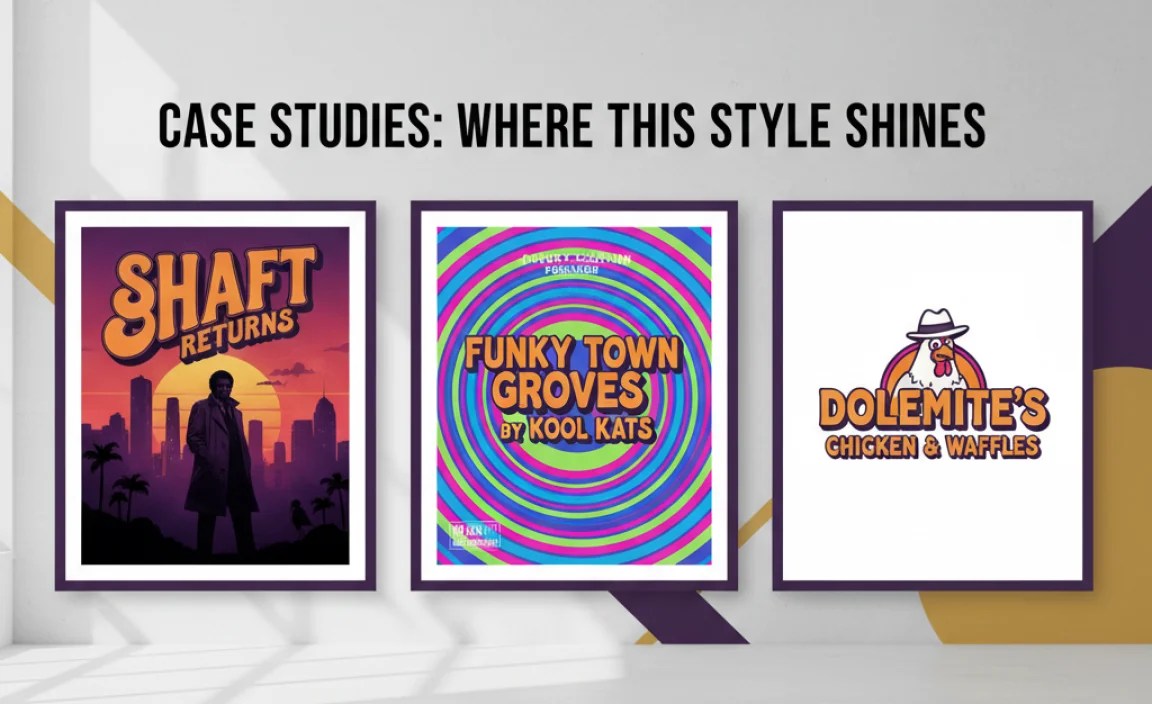
Understanding the “Dolemite Is My Name” font style is one thing, but seeing it in action provides concrete inspiration. This bold, retro, and expressive aesthetic isn’t limited to movie posters. It can add immense personality and impact to various branding and design projects when applied strategically. Let’s look at a few hypothetical (but realistic!) scenarios.
1. Independent Film Marketing
Scenario: A director is releasing a gritty, independent martial arts film set in the 1980s. The film’s tone is retro, action-packed, and has a DIY spirit, much like Dolemite.
Application: Using a font similar to Marlowe or a distressed version of Peace Sans for the film’s title treatment on posters and social media could:
- Instantly communicate the genre and era.
- Convey a sense of raw energy and authenticity.
- Attract an audience that appreciates cult classics and retro aesthetics.
- The tagline could be in a utilitarian, bold sans-serif like a condensed Bebas Neue which is highly legible even at small sizes, providing contrast and clarity.
2. Craft Brewery Branding
Scenario: A new craft brewery wants to launch a bold, hop-forward IPA with an urban, slightly rebellious edge. They want their brand to feel authentic, no-nonsense, and memorable.
Application: The primary logo or beer name display could use a custom-modified bold font with slight imperfections, reminiscent of the Dolemite style, perhaps paired with a strong, custom-designed label.
- The lettering would convey confidence and a strong flavor profile.
- Adding a vintage texture to the label itself would enhance the tactile, handcrafted feel.
- The brewery’s name could be in a clean, sturdy sans-serif like Lemon Milk, while the specific IPA name might use the more expressive Dolemite-inspired font. This balances boldness with readability for product lines.
3. Music Album Art
Scenario: A hip-hop artist is releasing an album that samples 1970s funk and soul, with lyrical content that’s raw, storytelling-focused, and rich with urban slang.
Application: The album title on the cover art could be rendered in a powerful brush script or a bold, slightly distressed display font.
- This would visually connect the music’s sonic influences to its lyrical themes.
- It signals to fans that this is an album with substance and a strong, independent voice.
- Artist names could be in a contrasting, cleaner bold font to ensure legibility and hierarchy within the artwork.
4. Vintage Clothing Brand or T-Shirt Line
Scenario: A clothing brand focuses on retro streetwear and wants to release a limited edition line inspired by 70s and 80s urban culture.
Application: Logos for the limited edition line, especially on t-shirts, could heavily borrow from the Dolemite aesthetic.
- Bold, slightly rough lettering that feels like it’s been screen-printed directly from that era.
- This creates an instant sense of cool, authentic vintage appeal.
- Designs could incorporate slogans in this style, making a bold statement on apparel.
In each of these